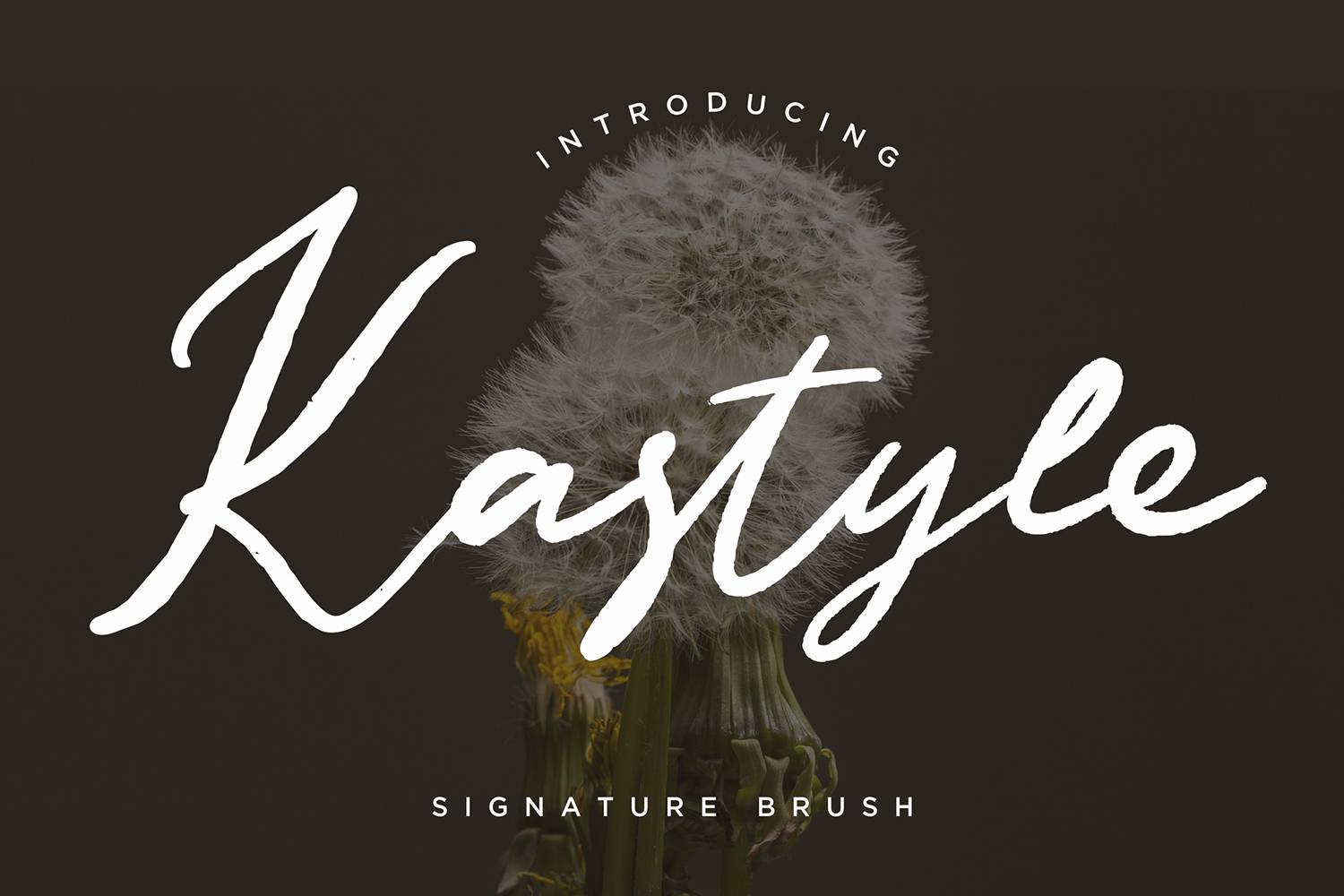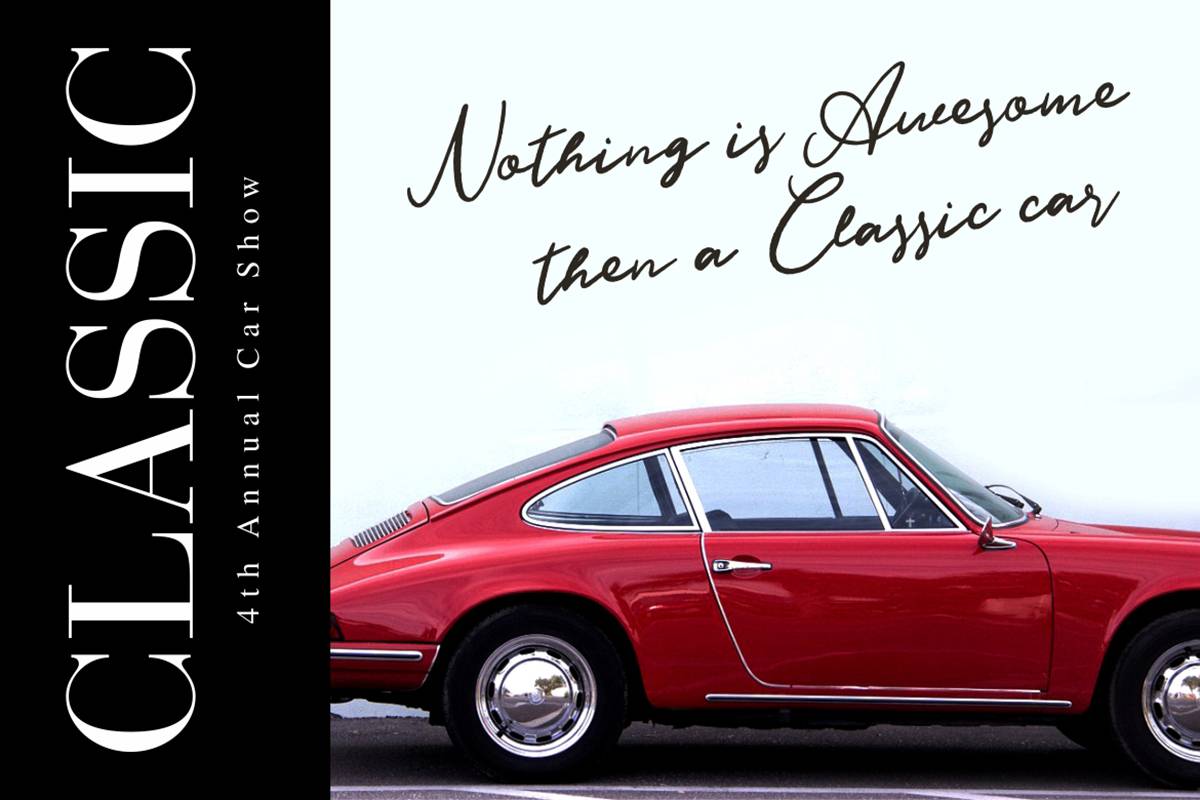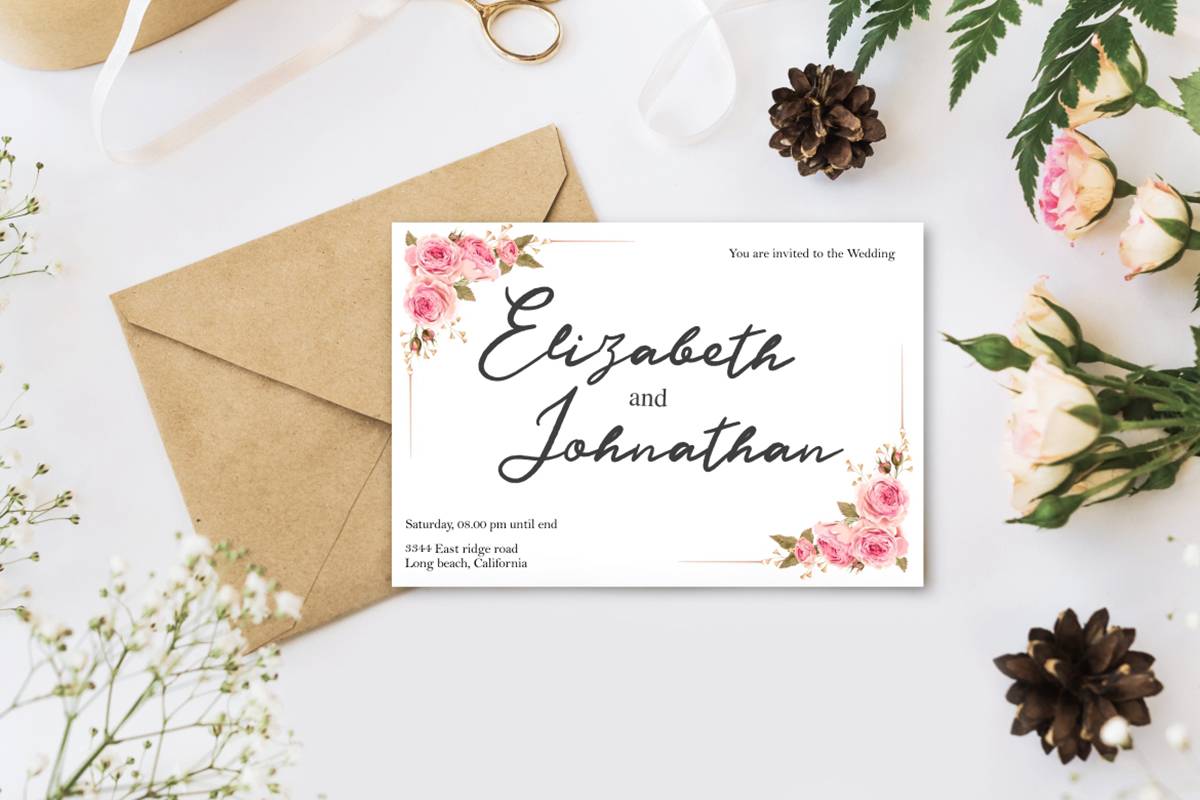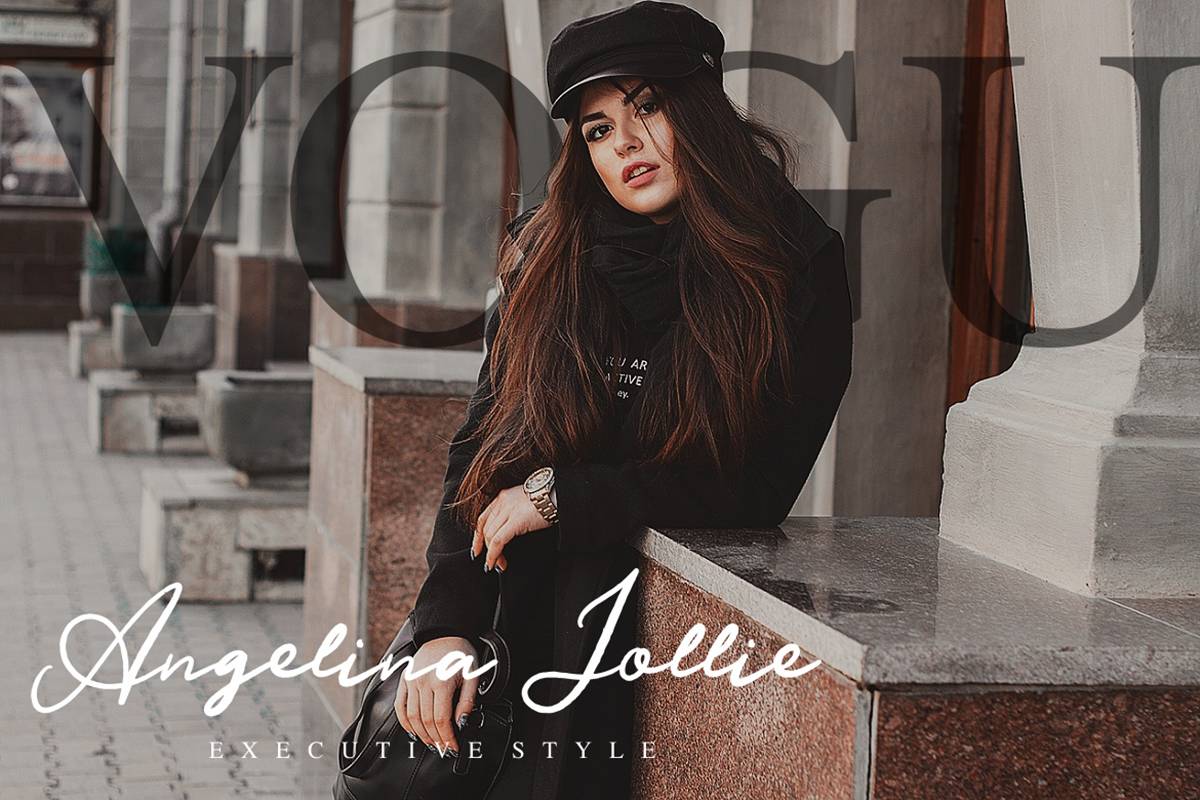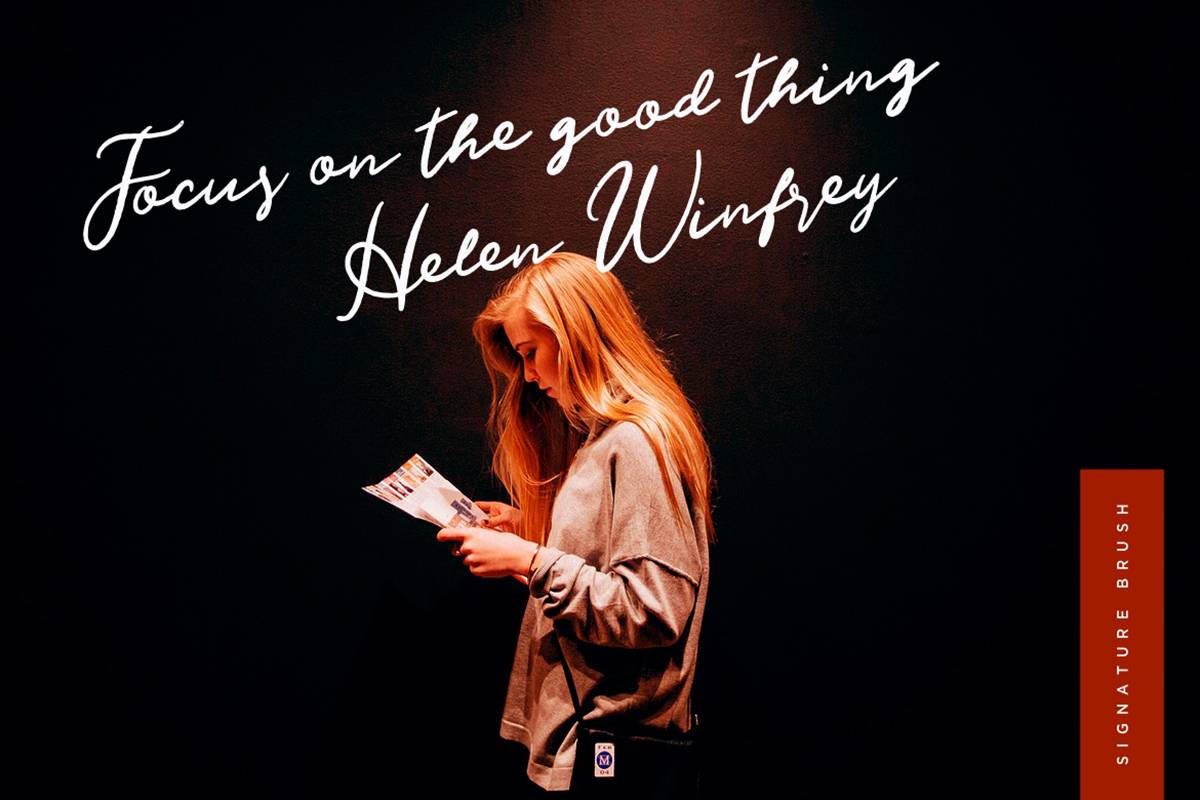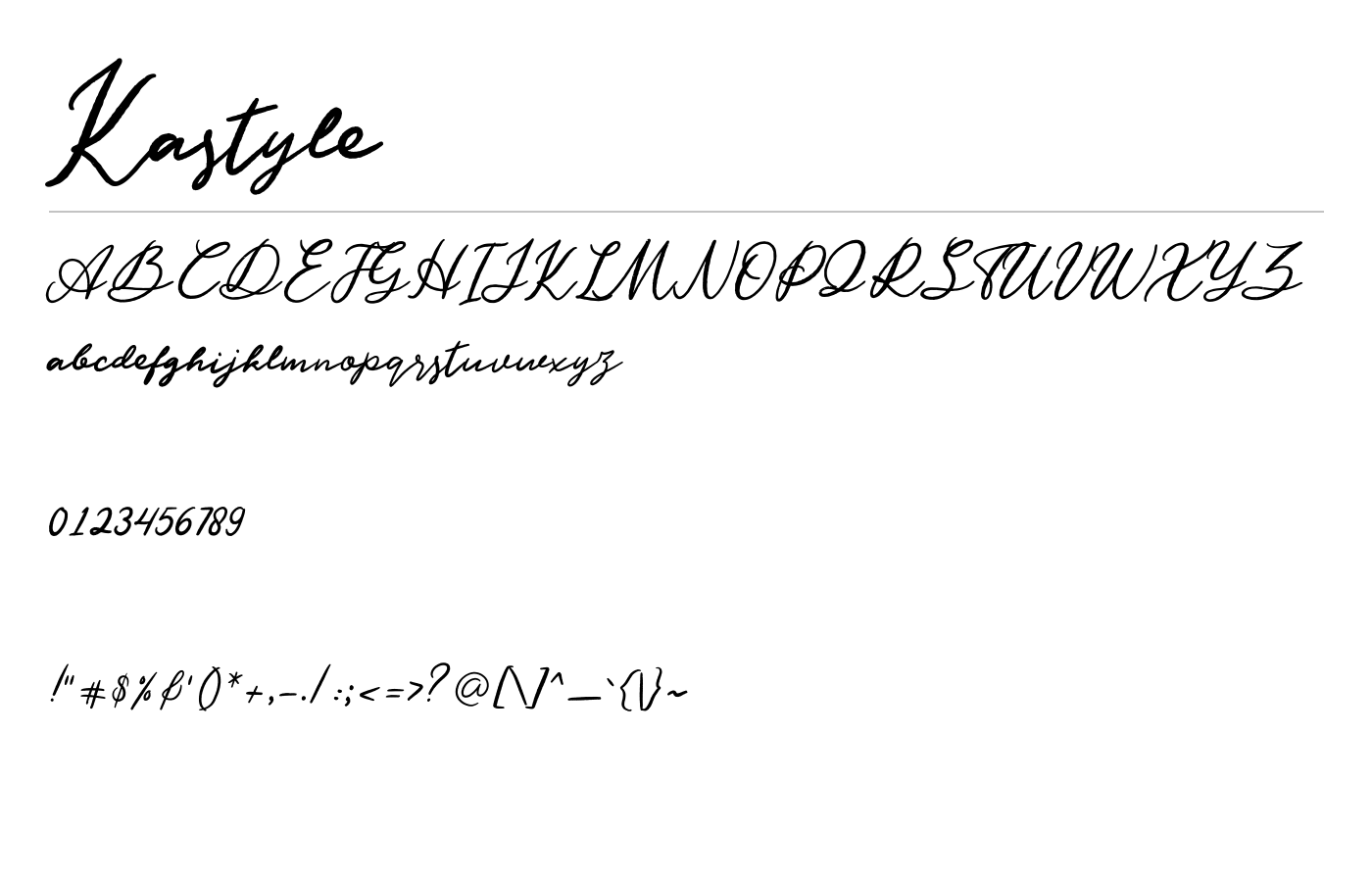
Kastyle is an elegant script font with a handwritten feel, featuring fluid, slightly slanted letterforms that add a personal and artistic touch. Its slender strokes and moderate contrast give it a refined yet approachable personality, making it ideal for invitations, branding, and decorative text where a graceful, stylish impression is desired. This font works well in creative and feminine contexts, lending warmth and sophistication to designs without sacrificing readability.
Kastyle Font
About Kastyle Font
| Font family | Kastyle Font |